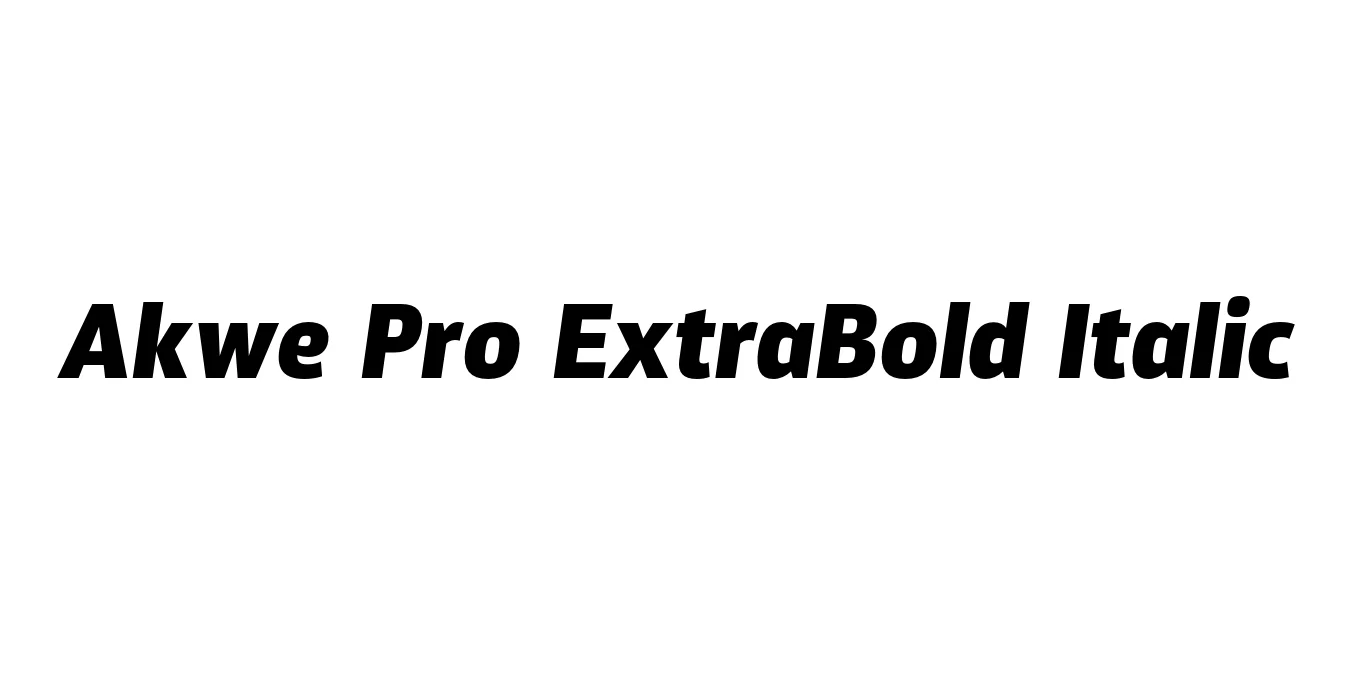
Akwe Pro ExtraBold Italic
Designed by Mariusz Rokicki
Akwe Pro ExtraBold Italic is a high-performance sans-serif typeface designed by Mariusz Rokicki and published by The Northern Block. It represents a sophisticated blend of humanist proportions and geometric clarity, making it an exceptionally versatile tool for modern graphic design. The ExtraBold Italic weight specifically offers a powerful, dynamic presence, providing a sense of momentum and urgency without sacrificing legibility or aesthetic elegance.
This typeface was meticulously crafted to excel in both digital and print environments. With its wide range of OpenType features, Akwe Pro supports a vast array of Latin-based languages and includes specialized characters for complex typography. Its sturdy construction and refined details ensure that it remains clear at small sizes while revealing distinctive character when used in large, impactful display settings, making it a favorite among professional typographers.
Akwe Pro ExtraBold Italic Best Uses
Perfect for bold, attention-grabbing titles in magazines or websites.
Ideal for creating strong, dynamic logos and corporate identities.
Excellent for promotional materials requiring a sense of speed and impact.
Suitable for high-impact interface elements and call-to-action buttons.